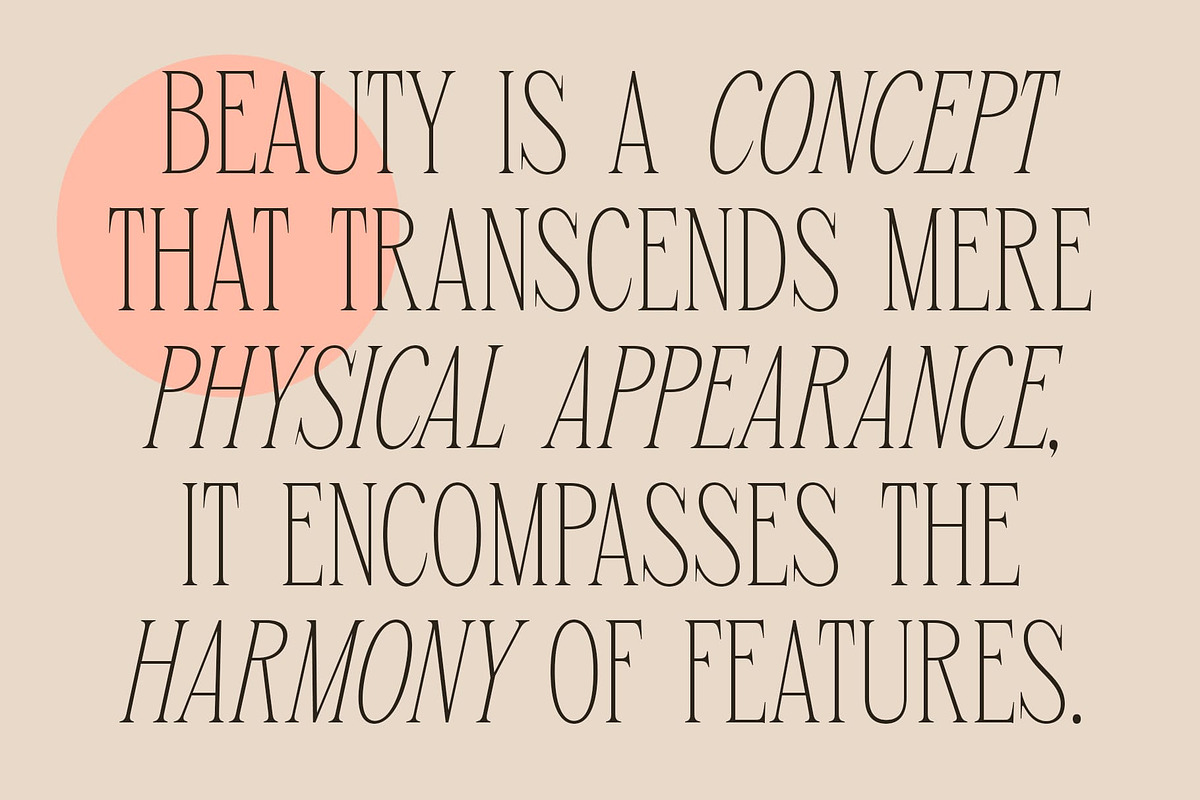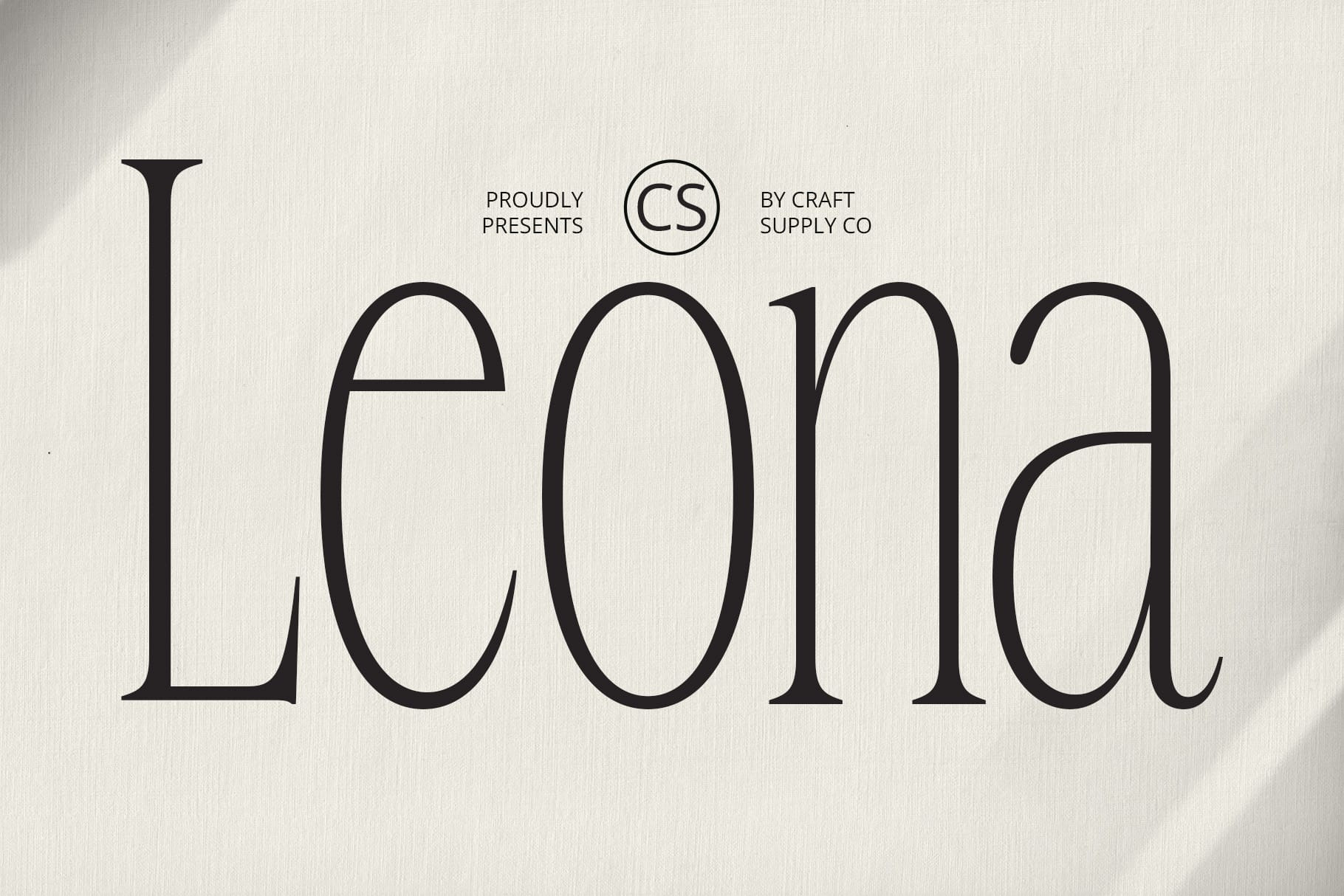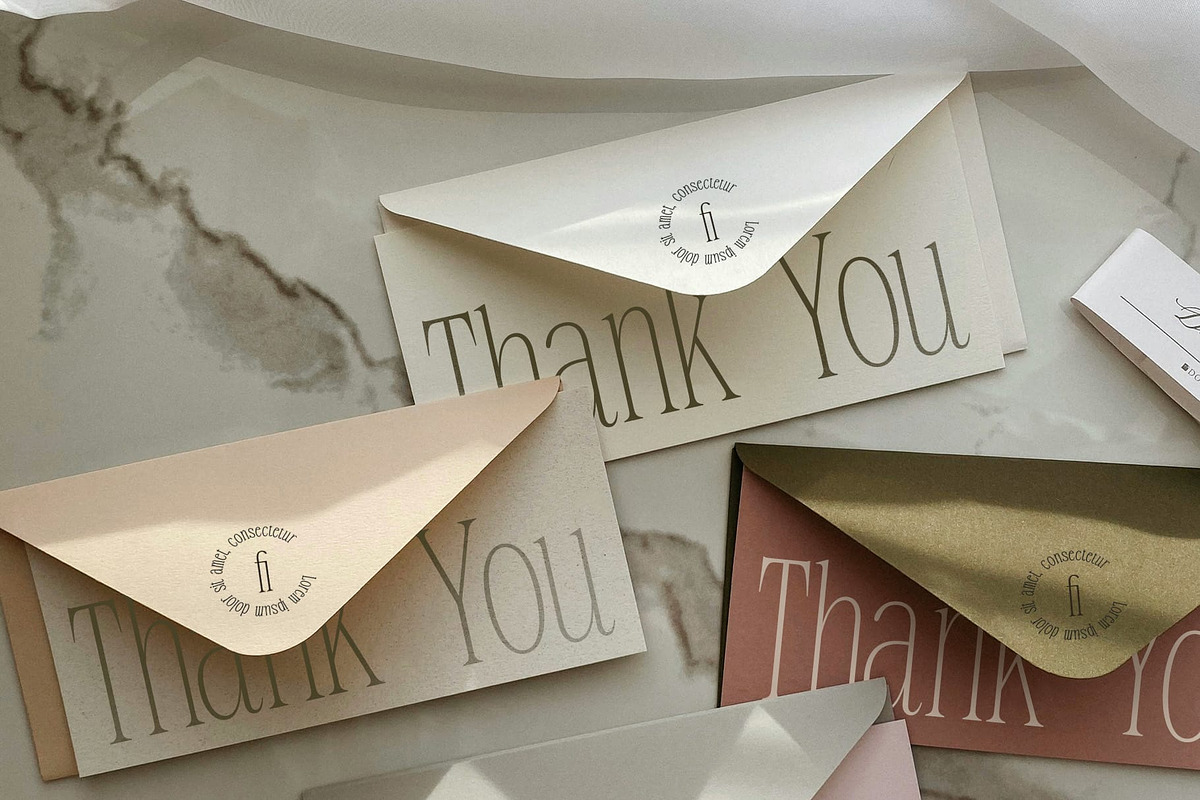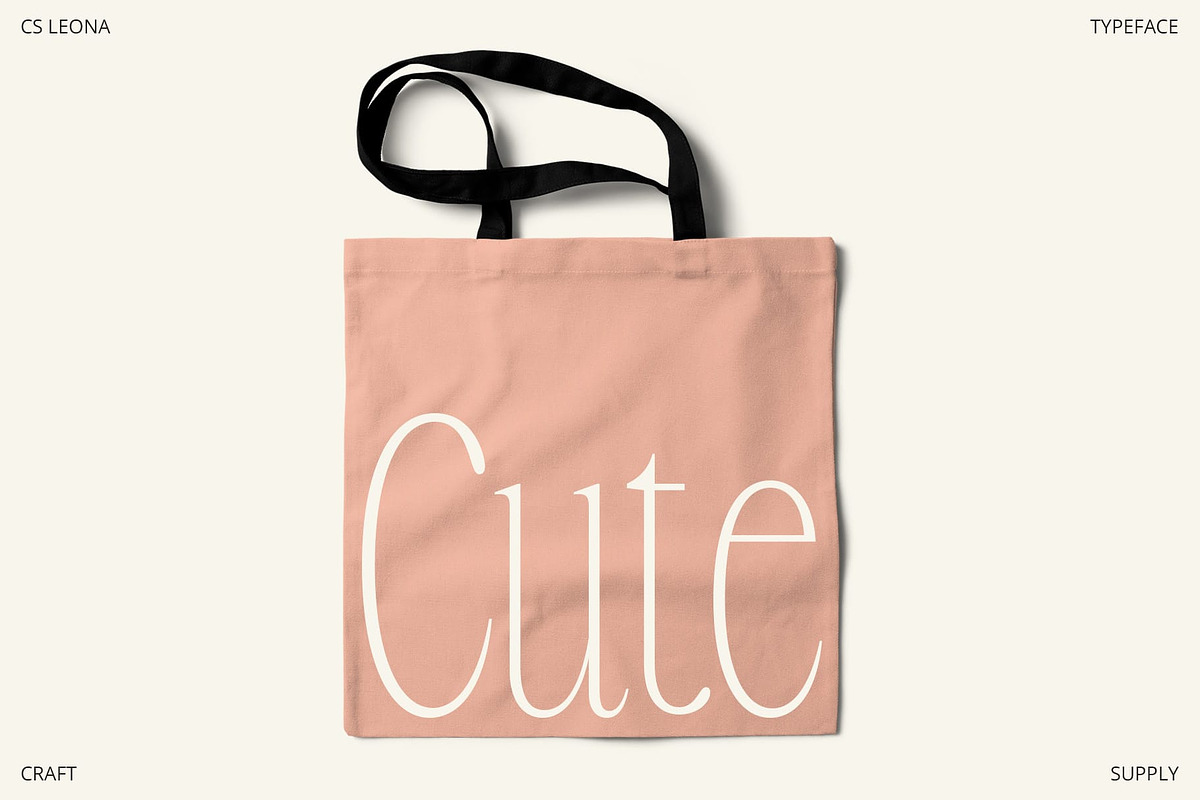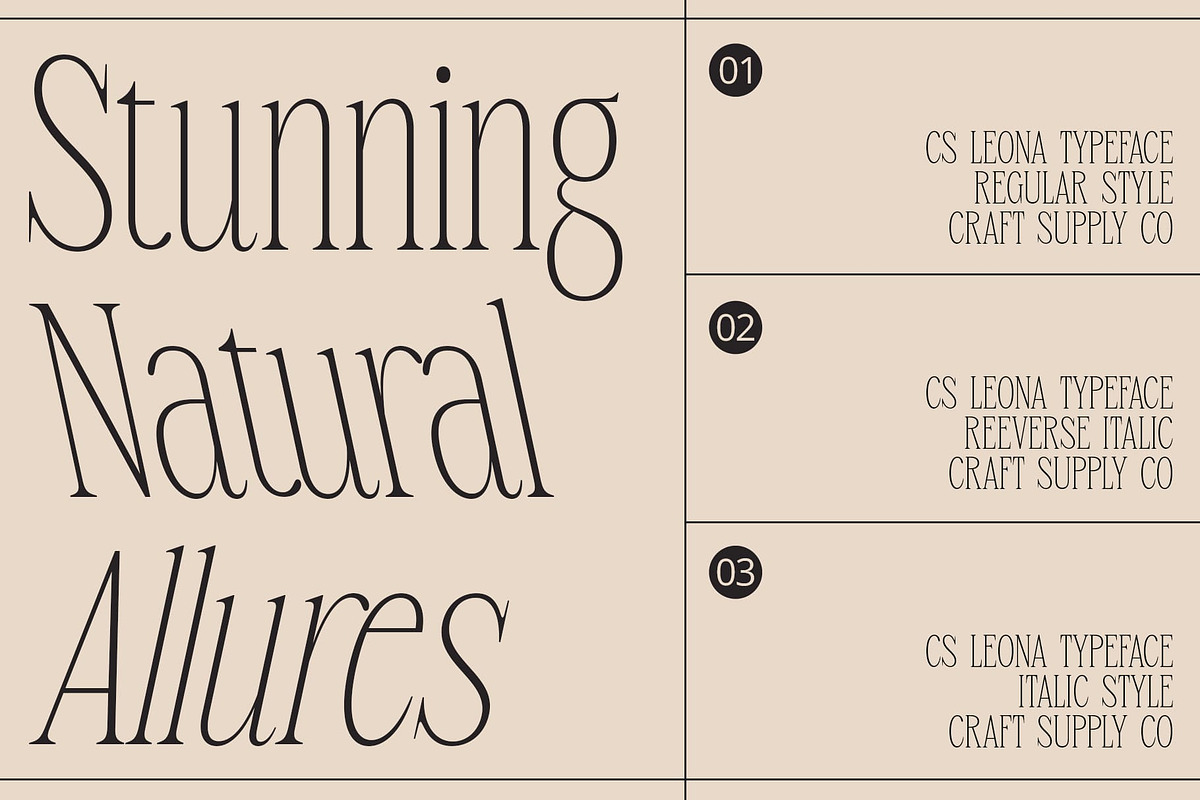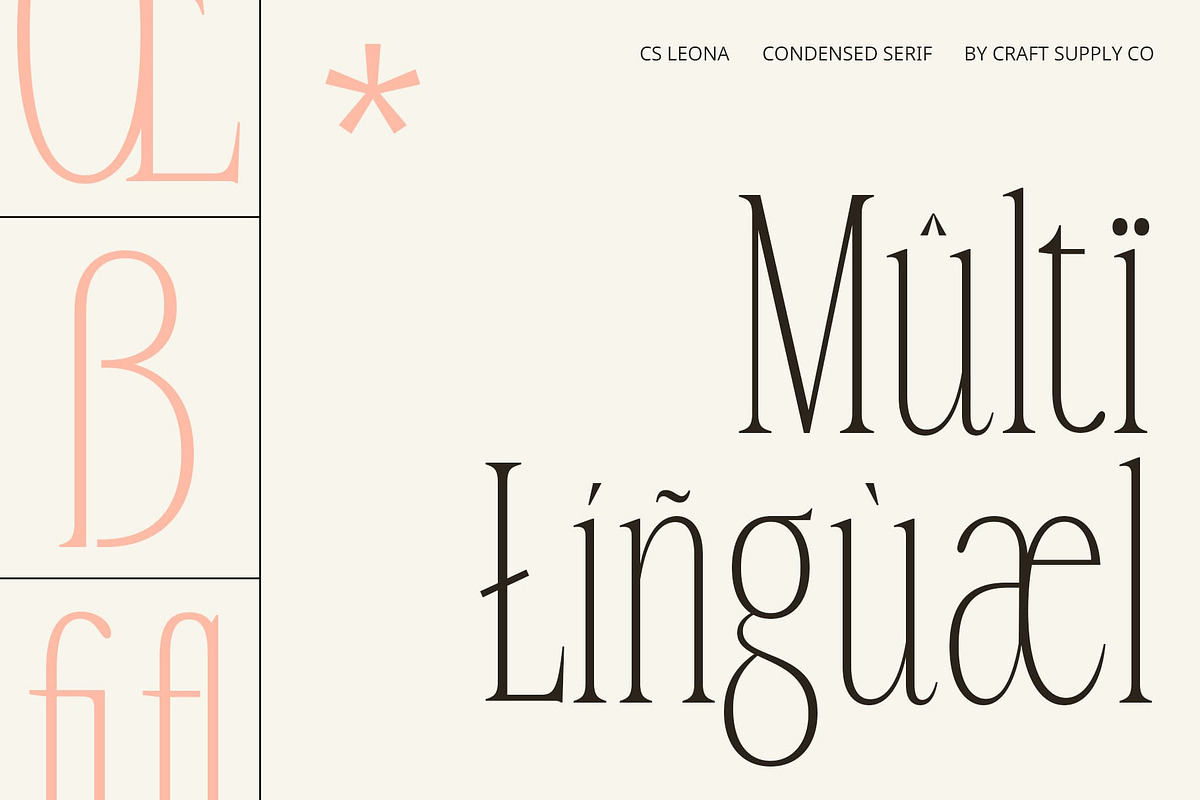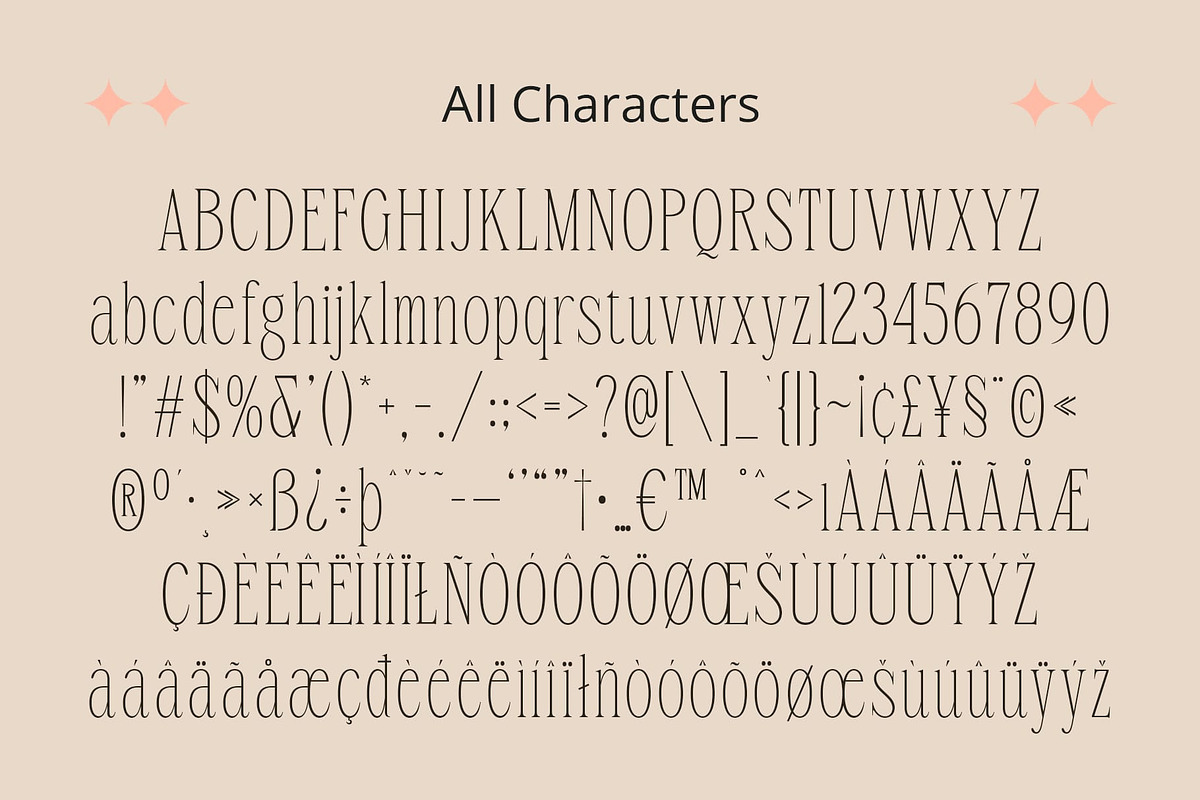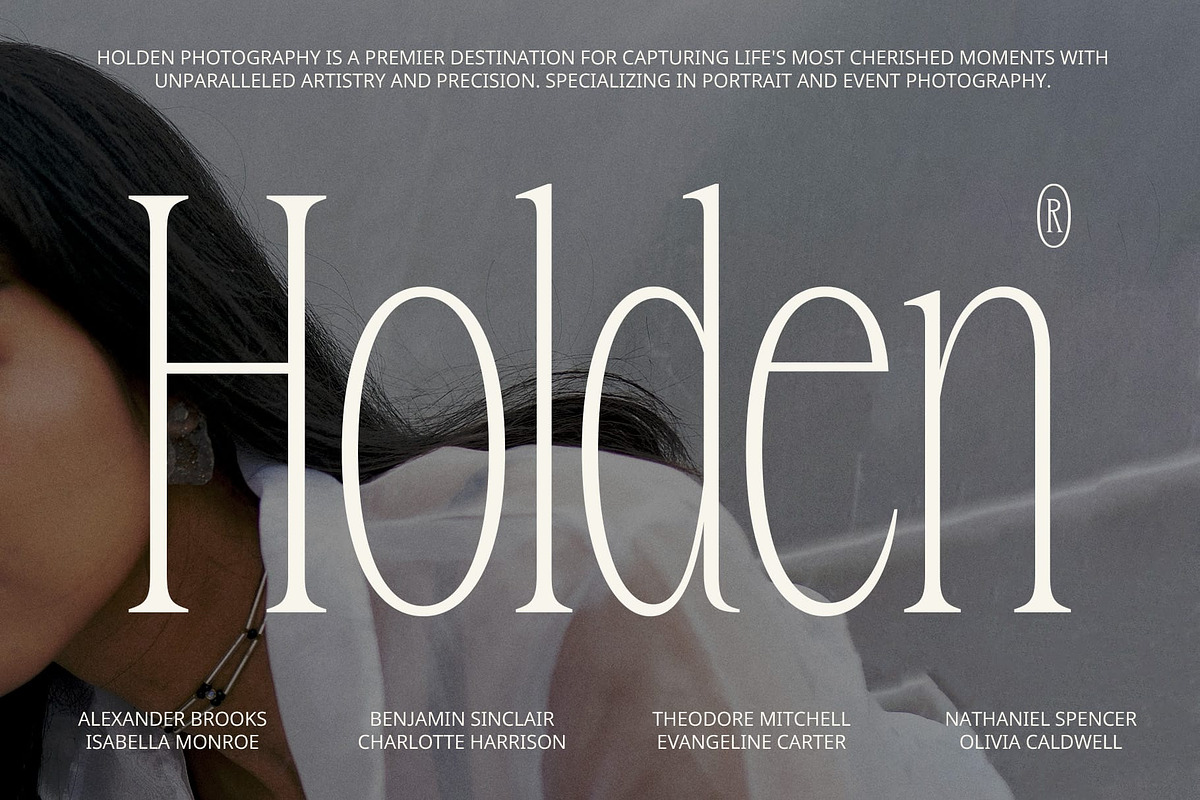
CS Leona – Condensed Font
CS Leona – Condensed Font: Sleek Elegance with Modern Sophistication
Modern Condensed Serif Design CS Leona is a modern serif font with a condensed form that exudes elegance and sleekness. Its streamlined design offers a refined and sophisticated appearance, perfect for professional applications where both style and efficiency are paramount.
Elegant and Sleek Appearance The condensed form of CS Leona creates a sleek and polished look, ideal for studio designs, modern magazines, and business cards. This design emphasizes elegance and clarity, ensuring a sophisticated and clean presentation in every use.
Professional and Versatile With its modern aesthetic and condensed form, CS Leona is well-suited for a range of professional applications. Its elegant design makes it an excellent choice for high-end branding, editorial layouts, and business materials that require a touch of class.
Ideal for Modern and Professional Projects CS Leona provides a perfect balance of sophistication and functionality, making it an ideal choice for contemporary projects. Whether you’re designing studio materials, crafting modern magazine layouts, or creating stylish business cards, this font enhances your designs with a touch of modern elegance.
- CS Leona Regular
- CS Leona Italic
- CS Leona Reverse Italic